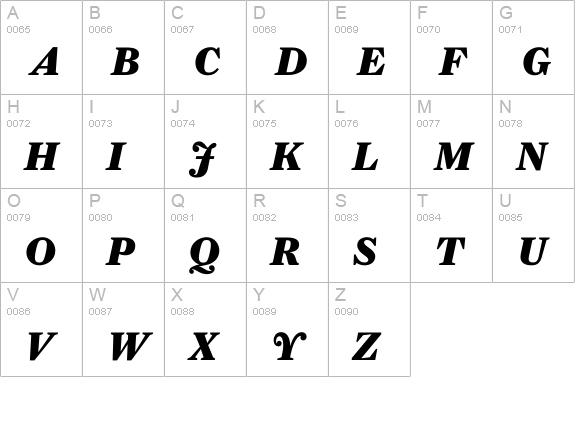
FarnhamDisplay-BlackItal font is a bold and elegant typeface that exudes sophistication and style. Its slanted italics give a modern twist to the classic black lettering, making it perfect for adding a touch of luxury to any design project. This versatile font is ideal for headlines, logos, posters, and more. The best part? FarnhamDisplay-BlackItal font is available for free download at FontsMarket.com. With its high quality and professional design, this font is a must-have for any designer looking to make a bold statement. Don't miss out on the opportunity to enhance your projects with this exquisite typeface, download it today and elevate your designs to the next level.